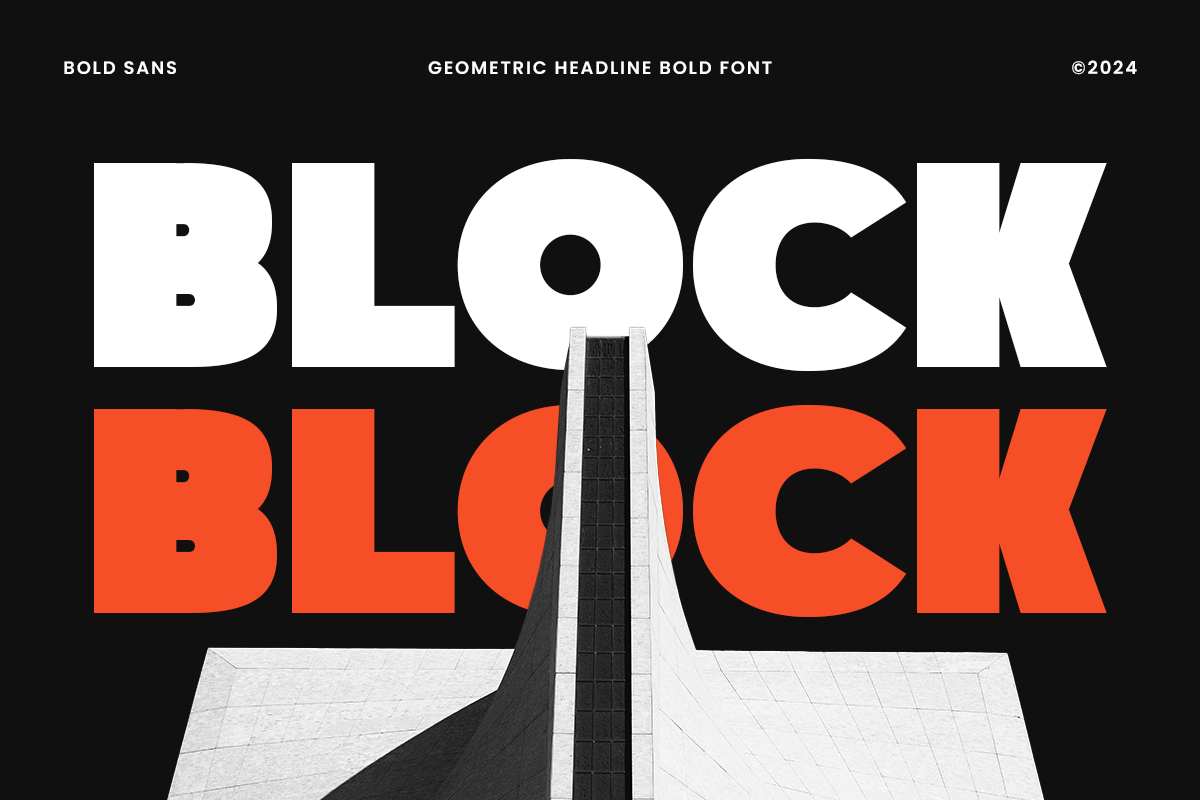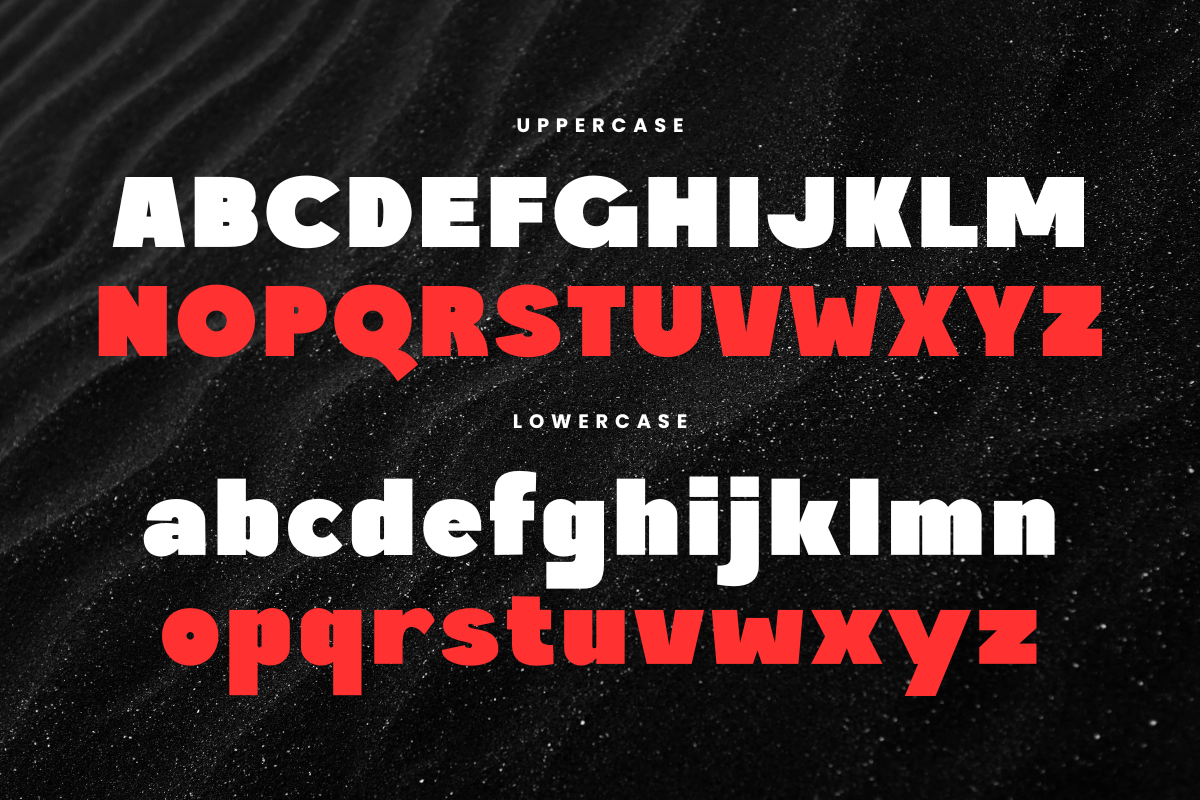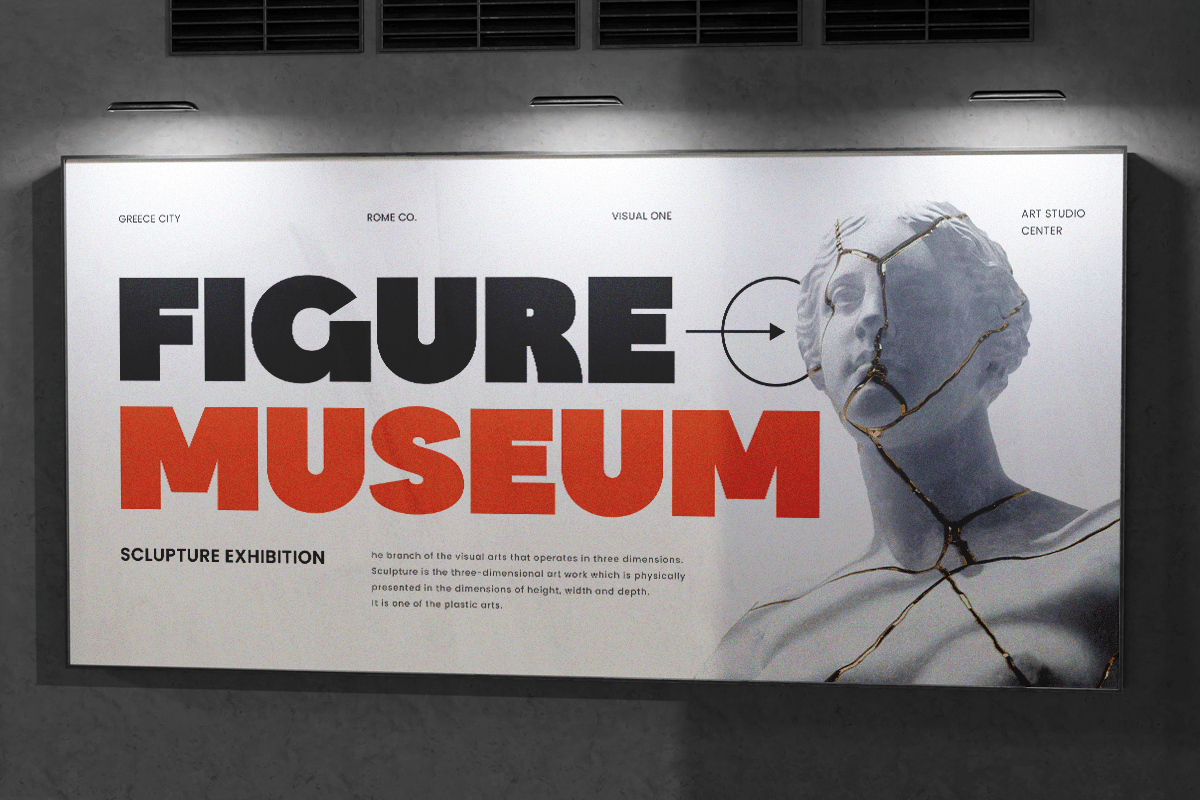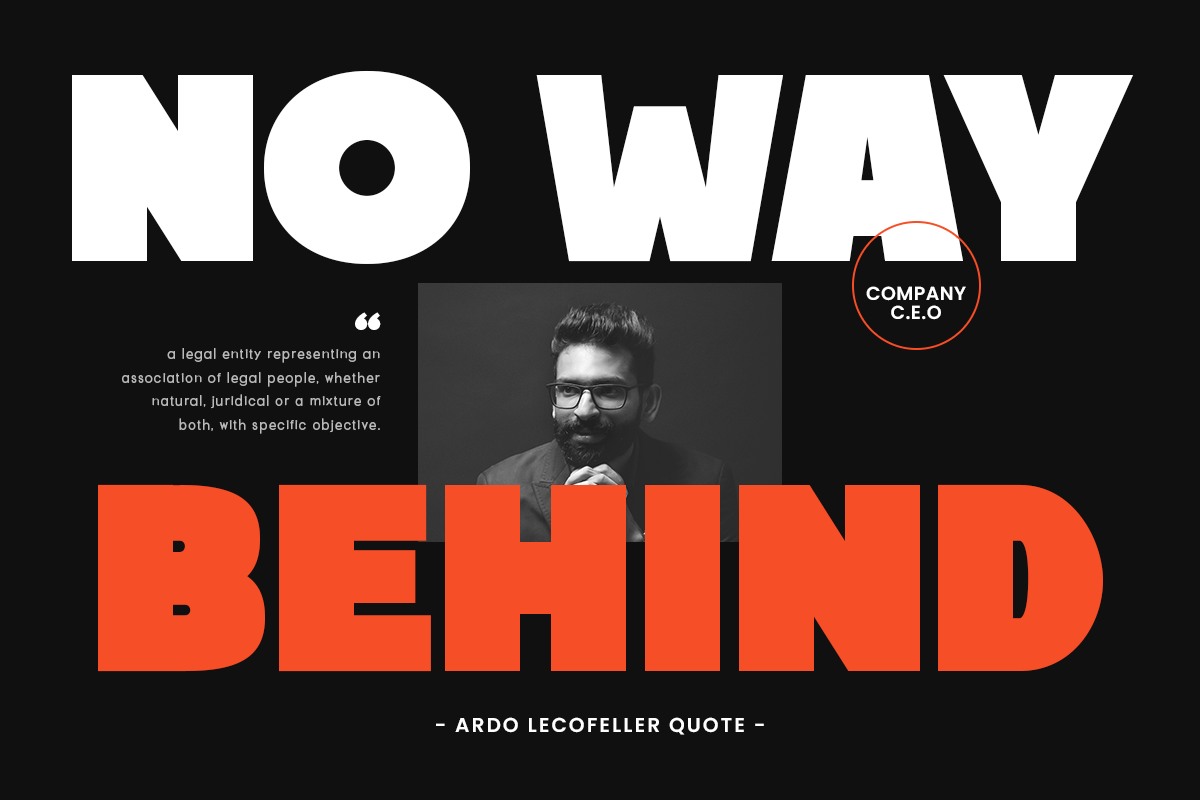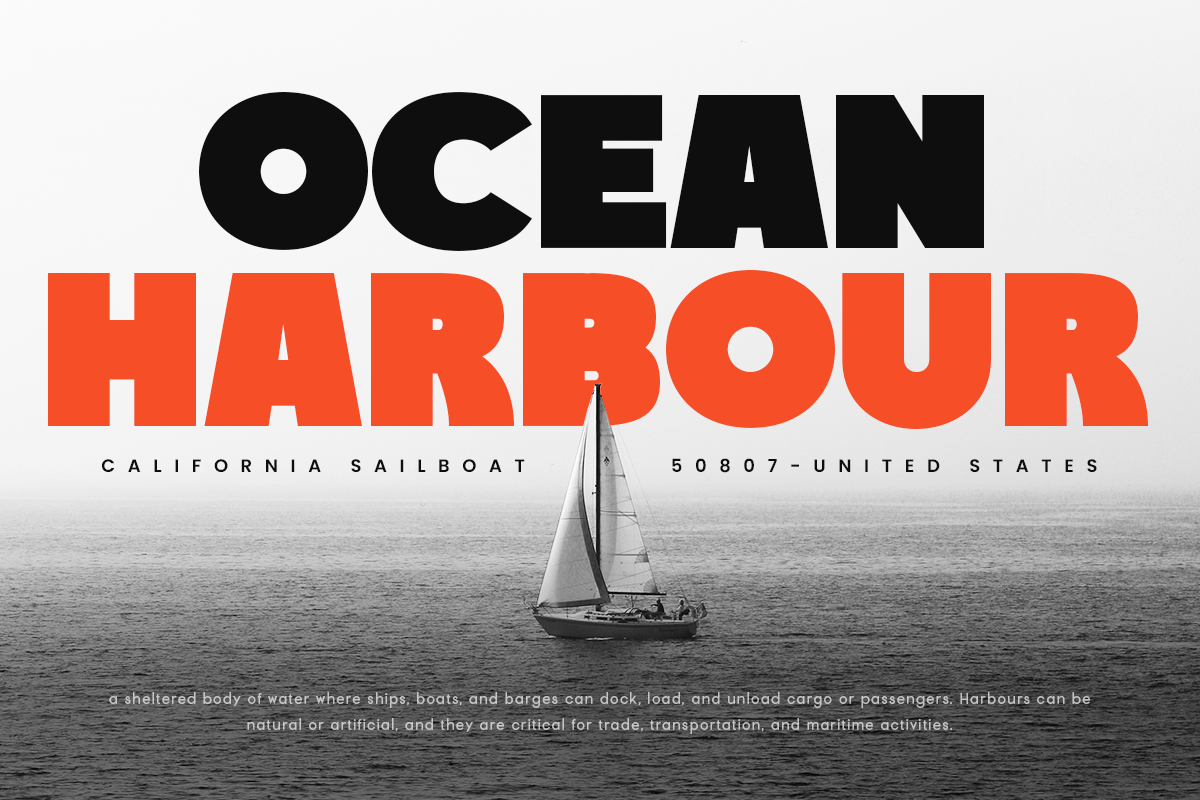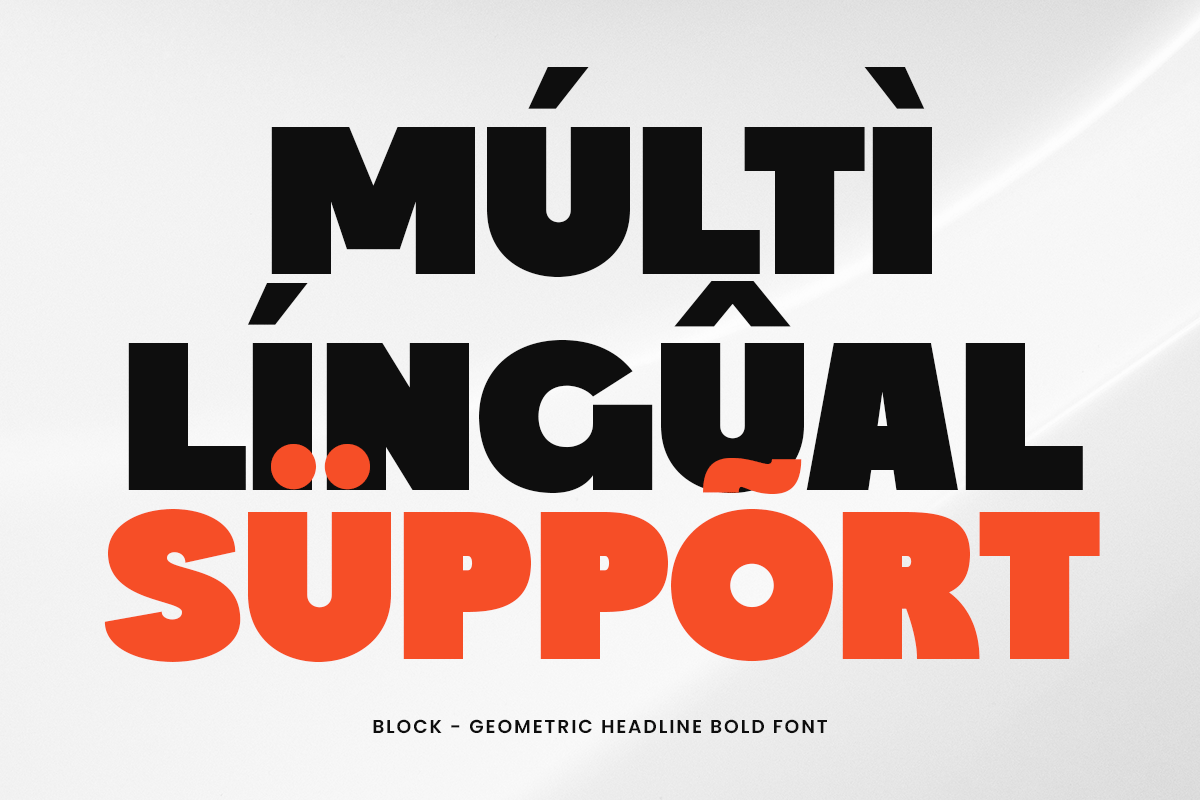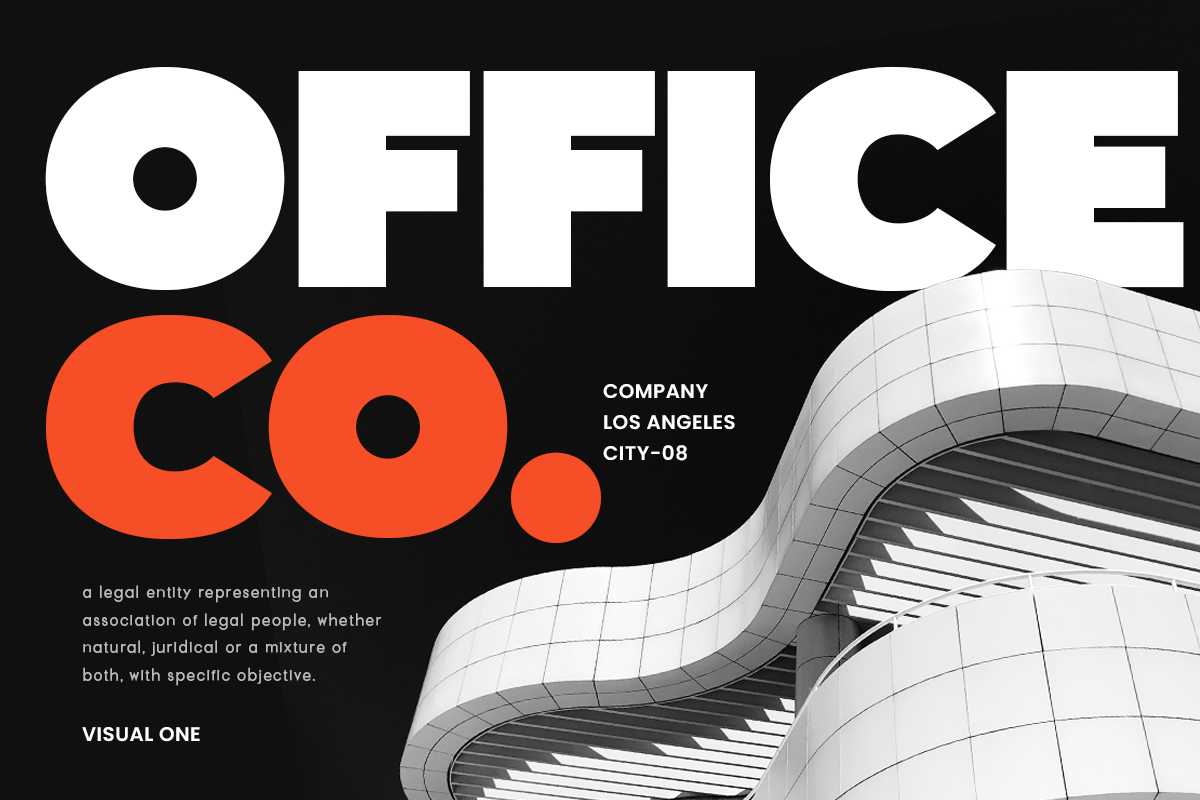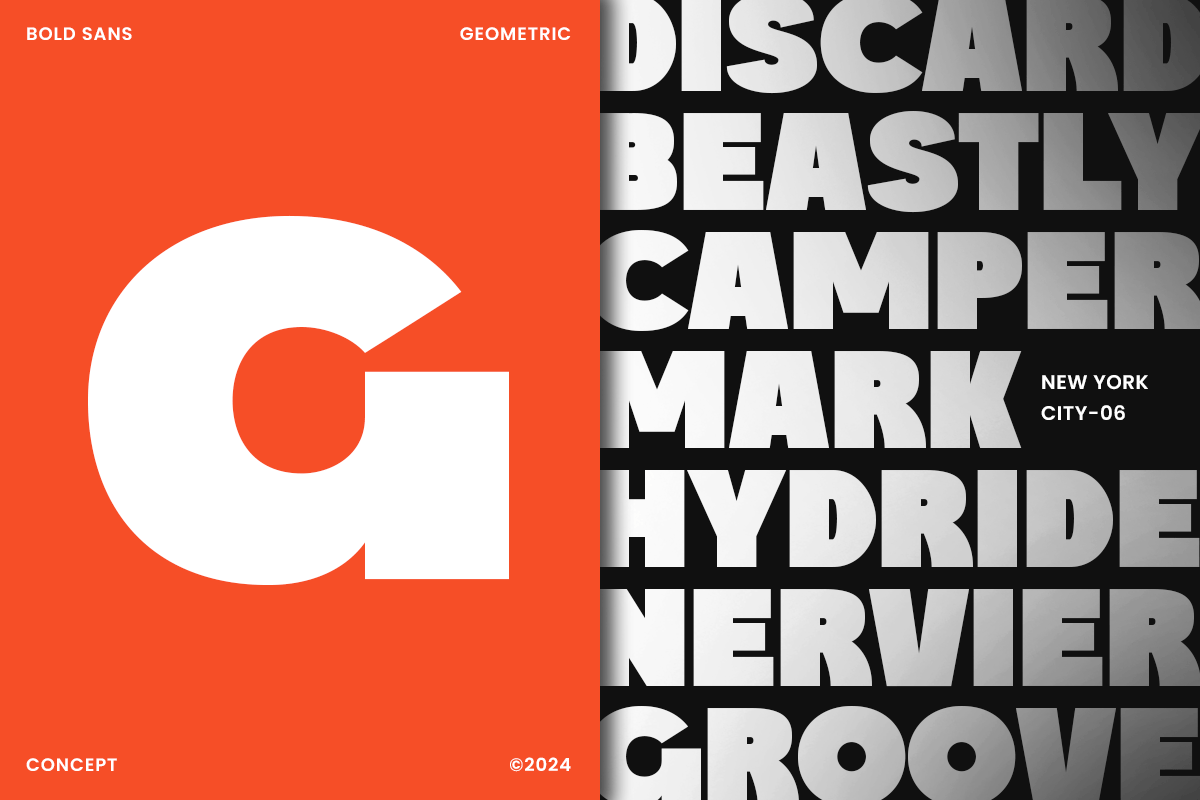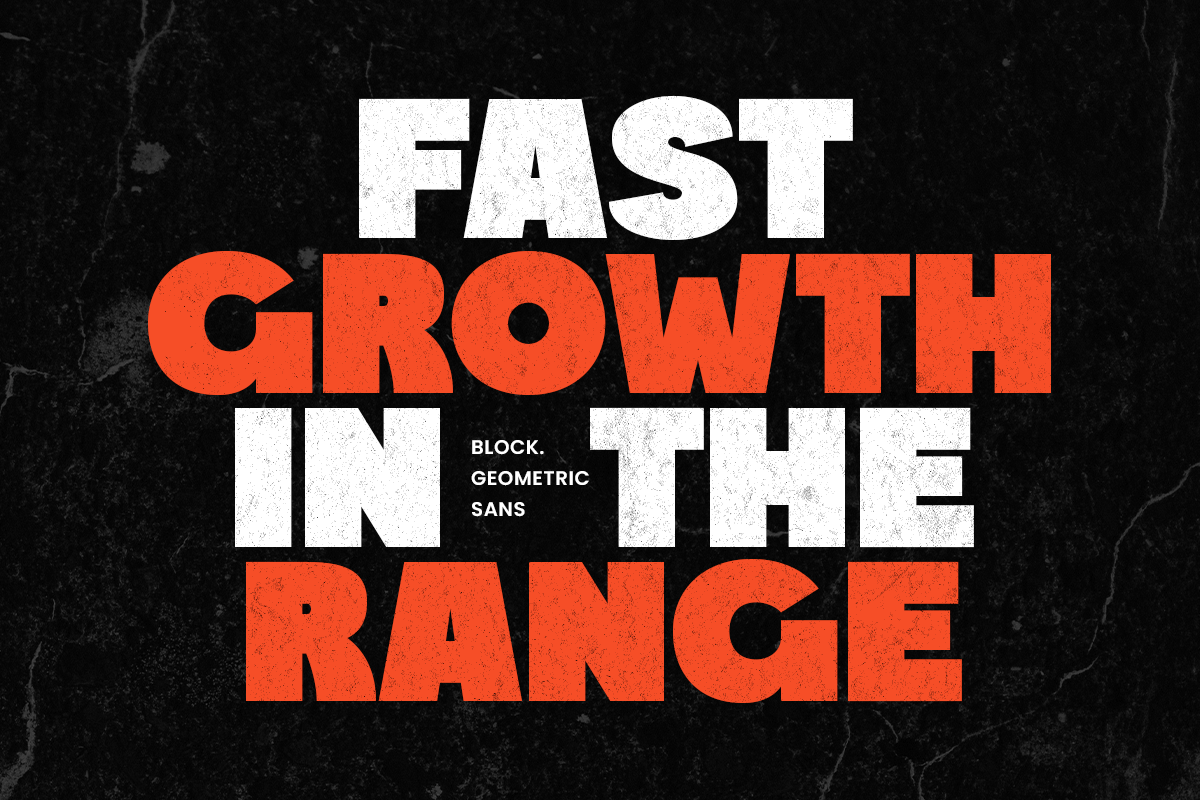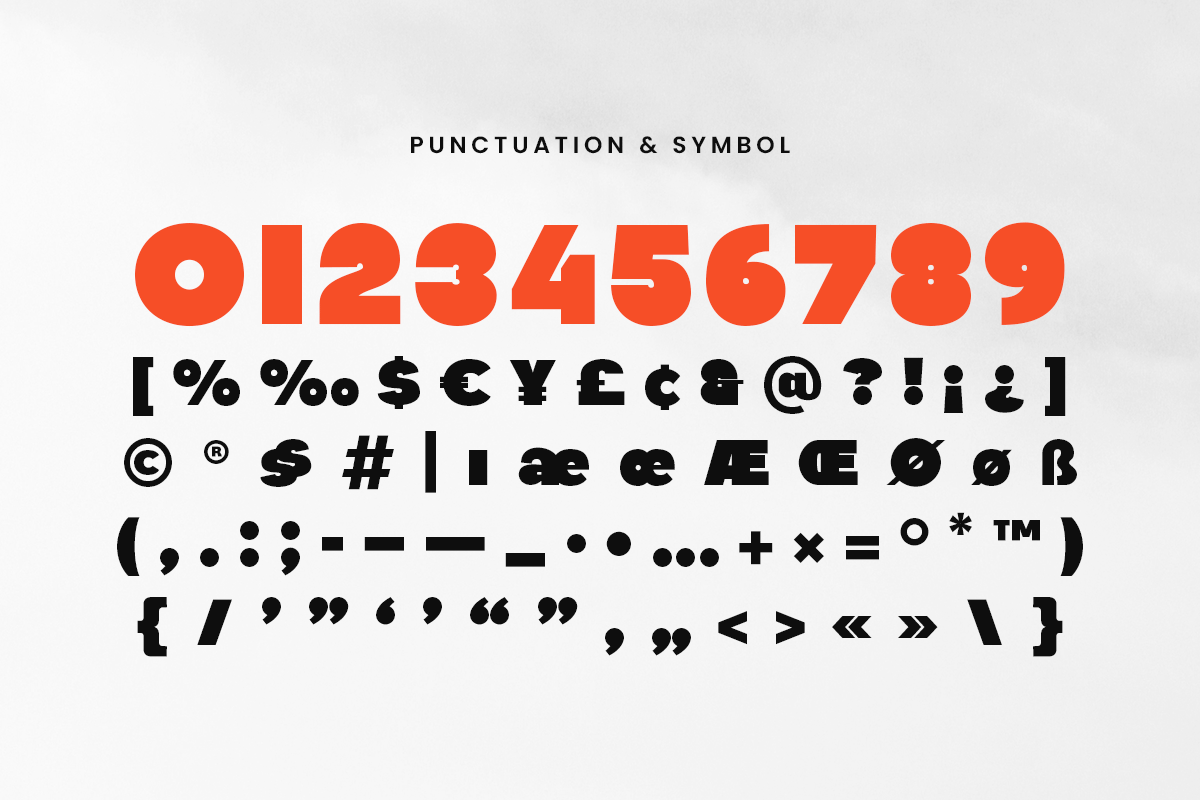
Block – Geometric Headline Bold Font
Block, a Geometric Headline Bold Font that created special for Headline, Branding, Title and more stand out typography for Modern and Small space. It’s so perfect to add your style and headline overview for Modern and Professional theme. And specially for this font, we crafted for bold action style and modern feels so enjoy to create any project that will show your main idea out.
Block Geometric Headline Bold Font ready with:
- Characters prepared to get best results
- Preview as a inspirations that you can do with this font
- Ready with Uppercase & Lowercase characters
- Perfect for Headline needs